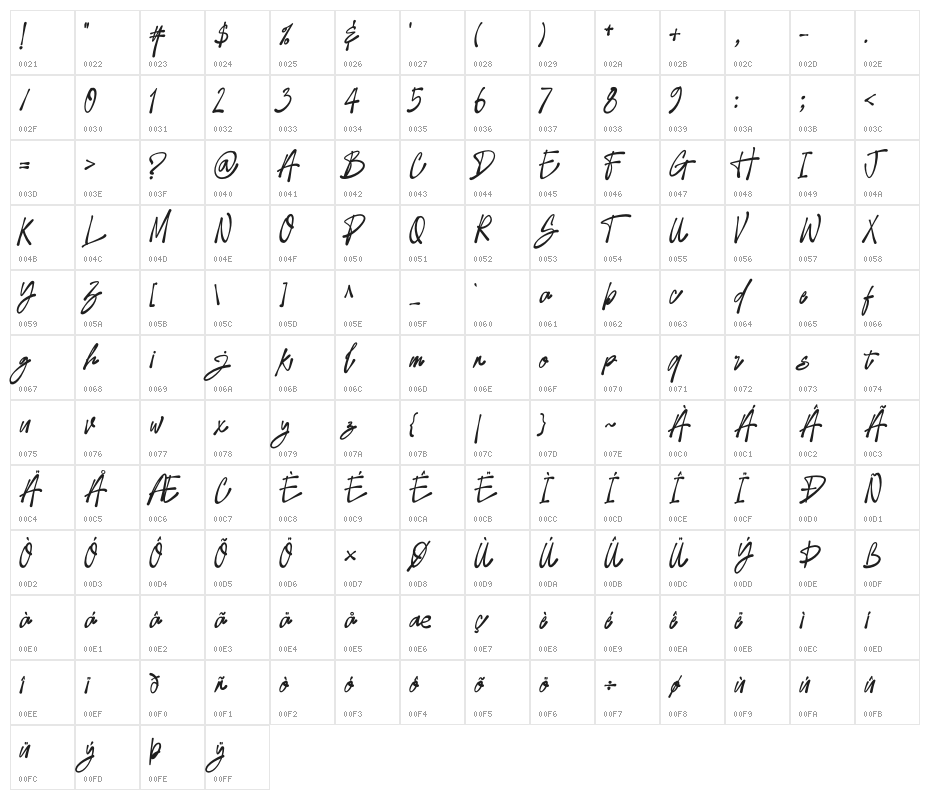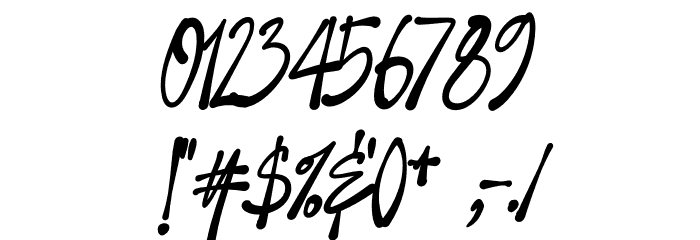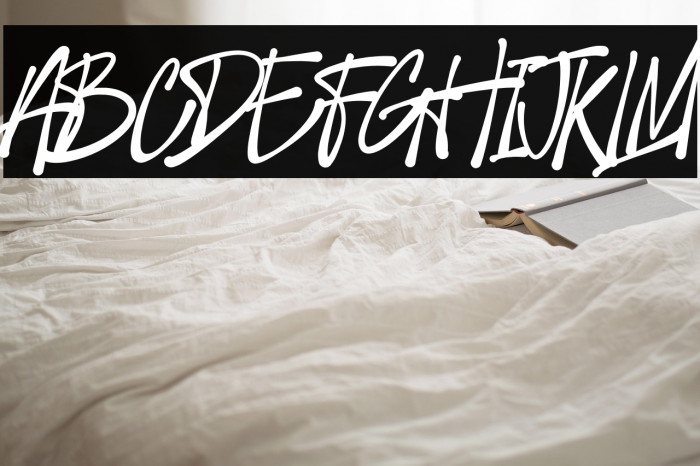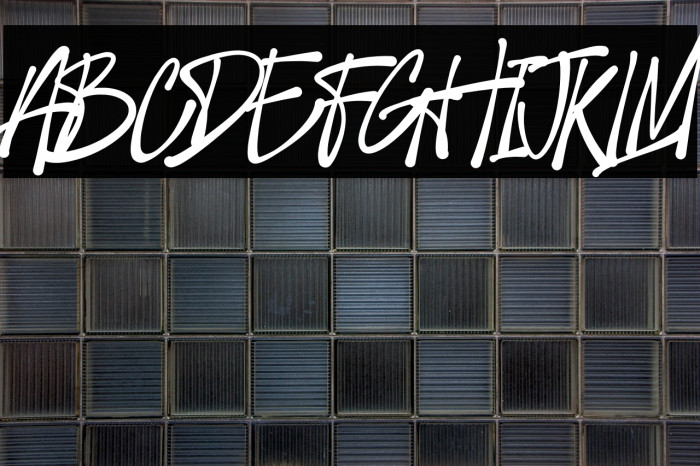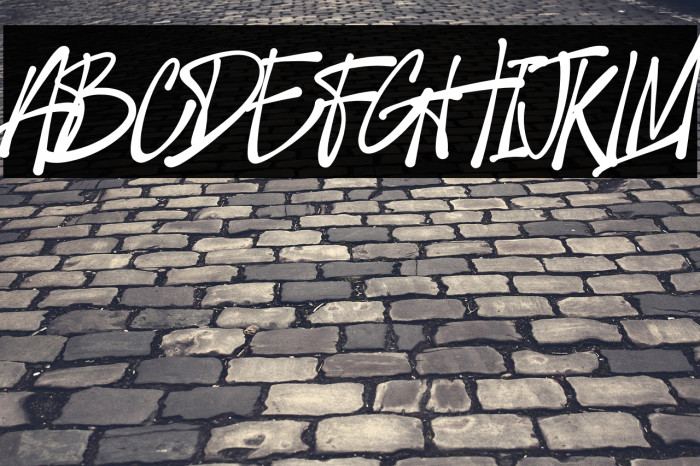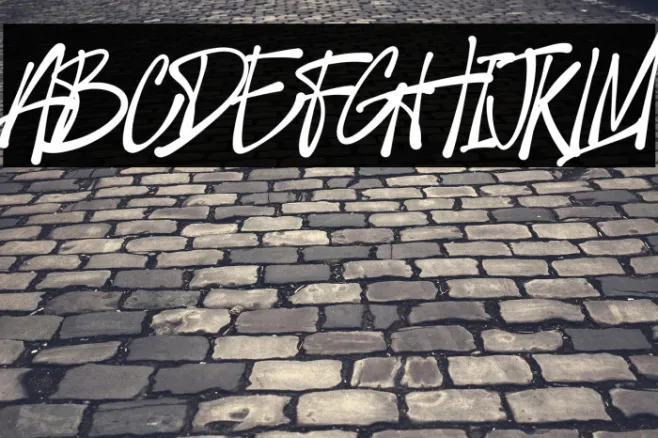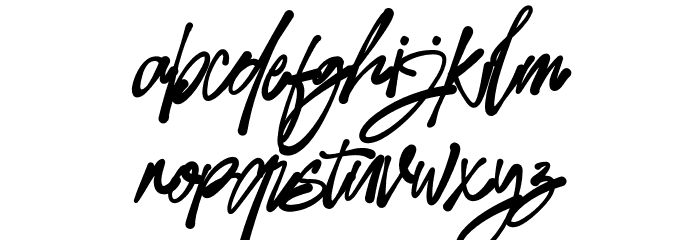
Jumpss Font
Jumpss Description
This font features a dynamic and energetic handwritten style, characterized by its fluid and expressive strokes. The letters are interconnected with a natural flow, giving it a personal and artistic touch. The uppercase letters maintain a consistent height, while the lowercase letters exhibit a playful variation in size and form. The numbers and special characters are crafted with the same lively spirit, ensuring a cohesive look throughout. This font's bold and confident appearance makes it suitable for projects that require a strong visual impact.